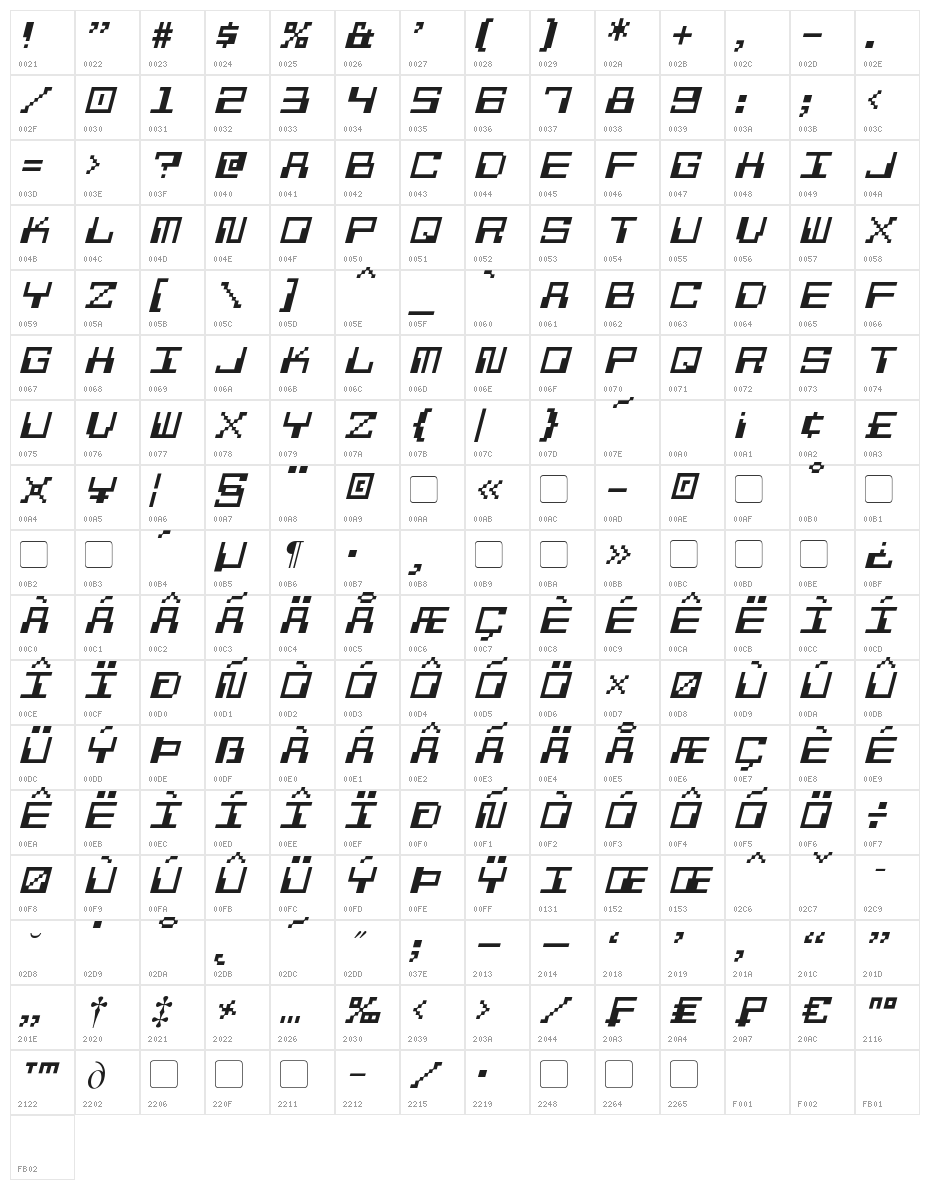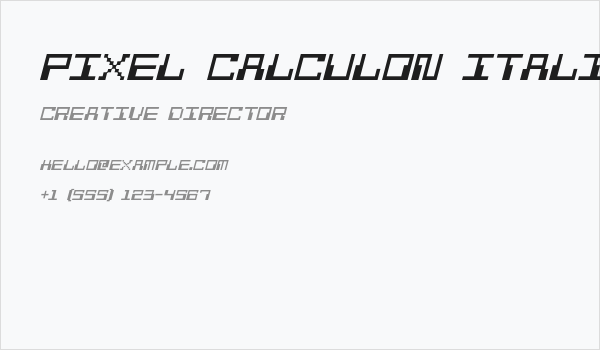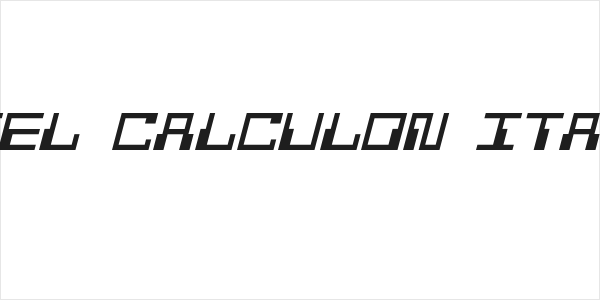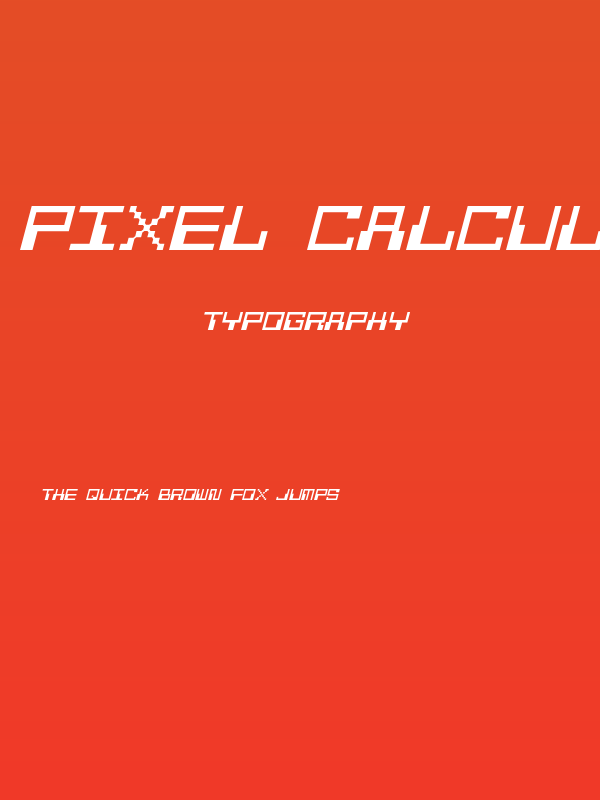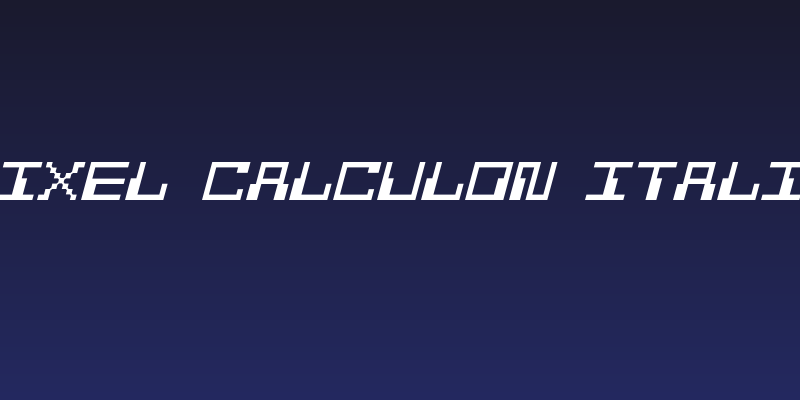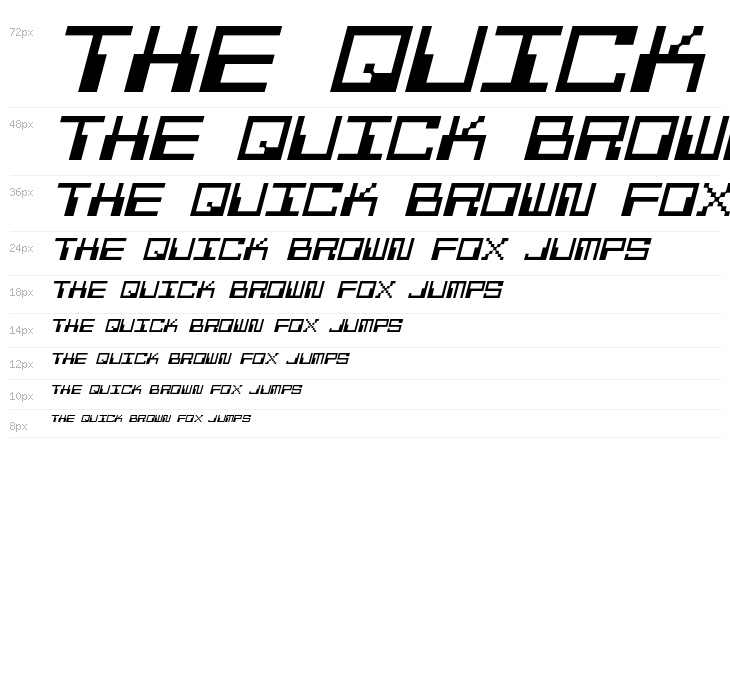
Pixel Calculon Italic Font
Pixel Calculon Italic Description
This font features a distinct pixelated style with an italic slant, reminiscent of retro digital displays and early video game graphics. The characters are composed of blocky, angular shapes that give it a futuristic yet nostalgic feel. The uppercase and lowercase letters maintain a consistent design, with sharp edges and a uniform stroke width. Numbers and special characters follow the same pixelated theme, ensuring a cohesive look across all glyphs. This font is ideal for projects that aim to evoke a sense of digital nostalgia or a tech-inspired aesthetic.
| Overall Style | Retro, Futuristic |
| Use Case | Logos, Headlines, Digital Art |
| Proposed Projects | Ideal for video game design, tech-themed posters, digital art, and retro-inspired branding. |